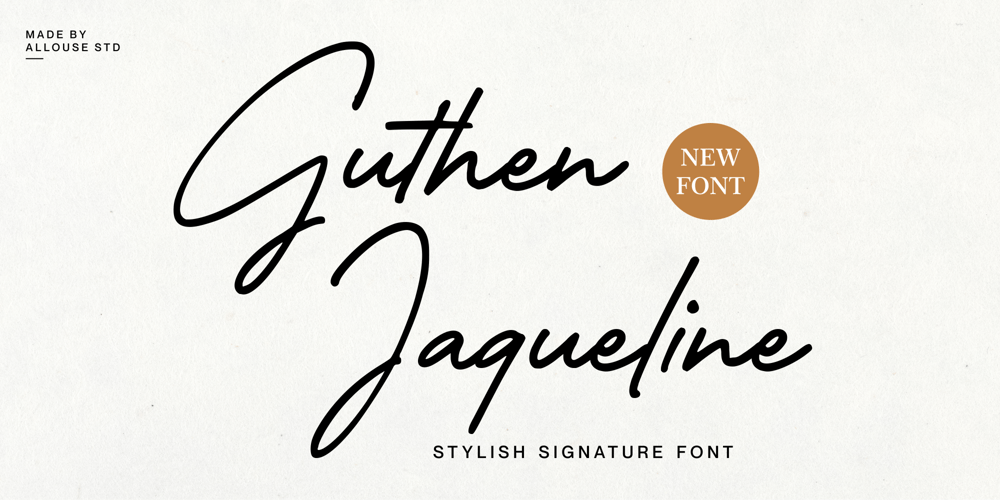
Guthen Jaqueline Font Family was designed by Fachrizal Yusuf and published by Allouse Studio. Guthen Jaqueline contains 1 styles and family package options. Proudly Presenting, Guthen Jaqueline A Stylish Siganture FontGuthen Jaqueline is perfect for any titles, logo, product packaging, branding project, megazine, social media, wedding, or just used to express words above the background.Guthen Jaqueline also come with Multi-Lingual Support.Enjoy the font, feel free to comment or feedback, send me PM or email. Thank You!